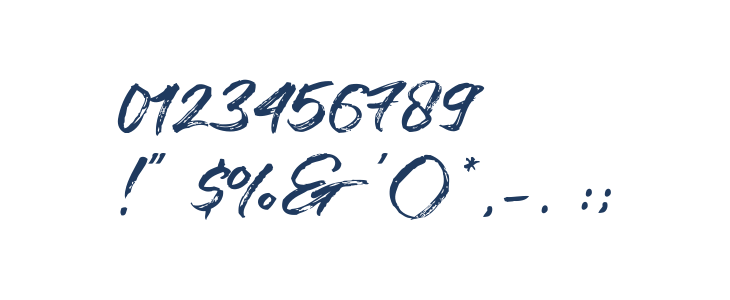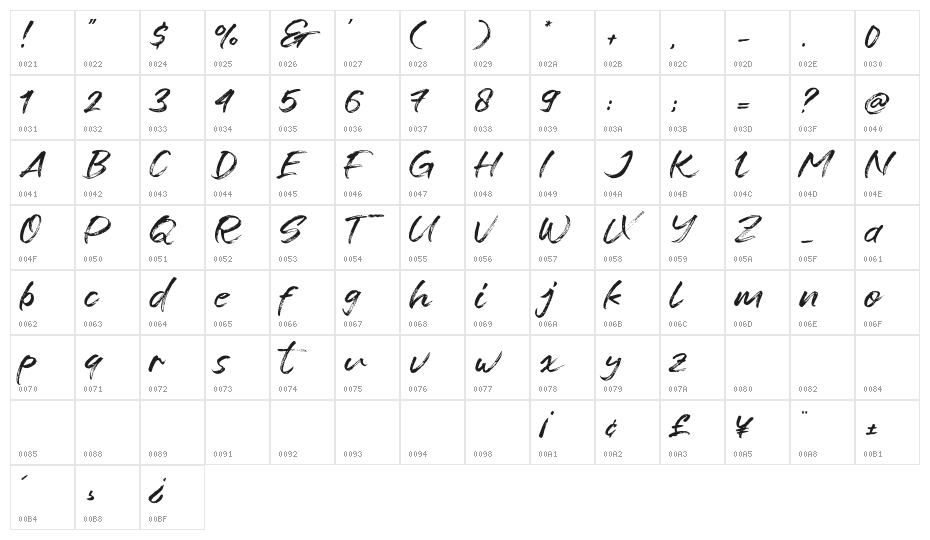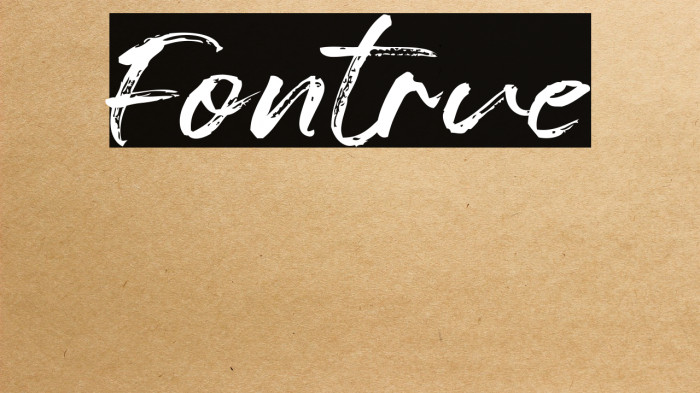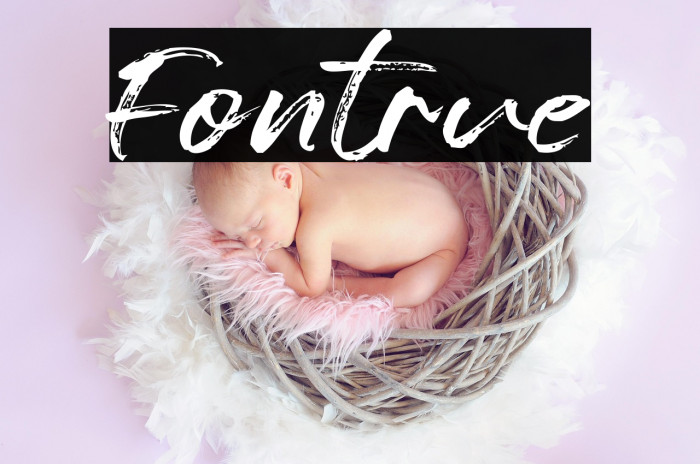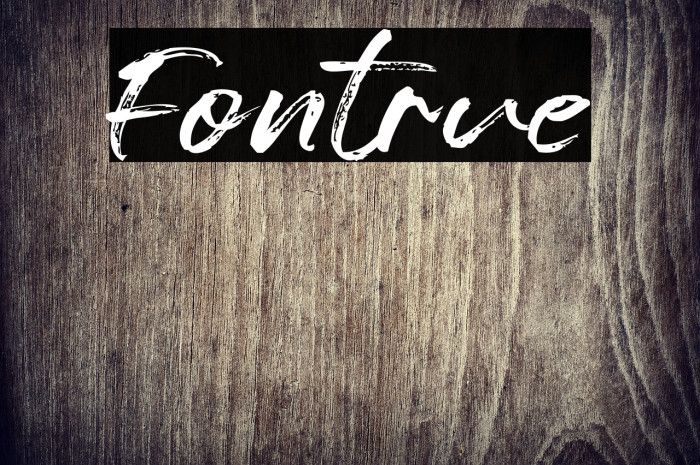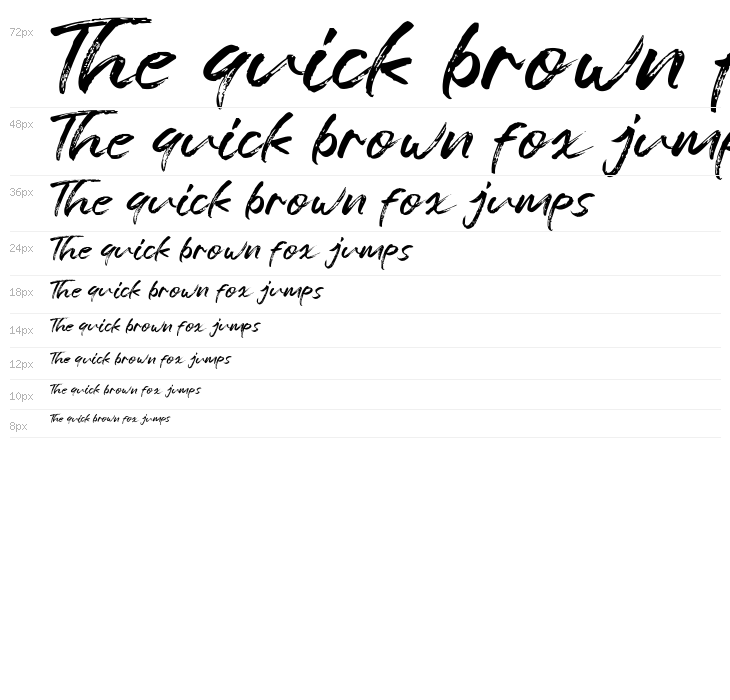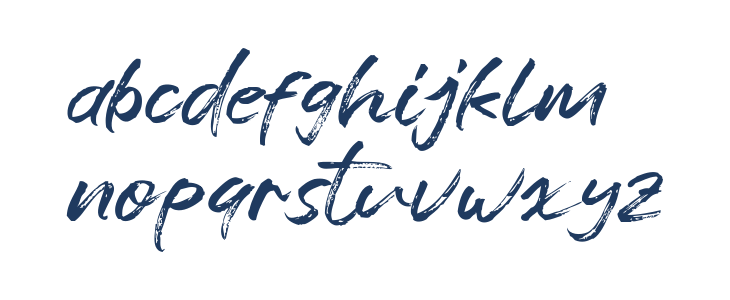
Fontrue Font
Fontrue Description
This font exudes a bold and expressive style, characterized by its brush-like strokes and dynamic flow. The letters have a hand-painted appearance, with varying thickness that adds a sense of movement and energy. The uppercase and lowercase letters maintain a consistent style, with the uppercase being slightly more pronounced. Numbers and special characters follow the same artistic approach, ensuring a cohesive look across all elements. The overall aesthetic is both artistic and edgy, making it suitable for projects that require a strong visual impact.
| Overall Style | Modern, Artistic |
| Proposed Projects | Ideal for artistic projects, branding, posters, and any design needing a bold, expressive touch. |